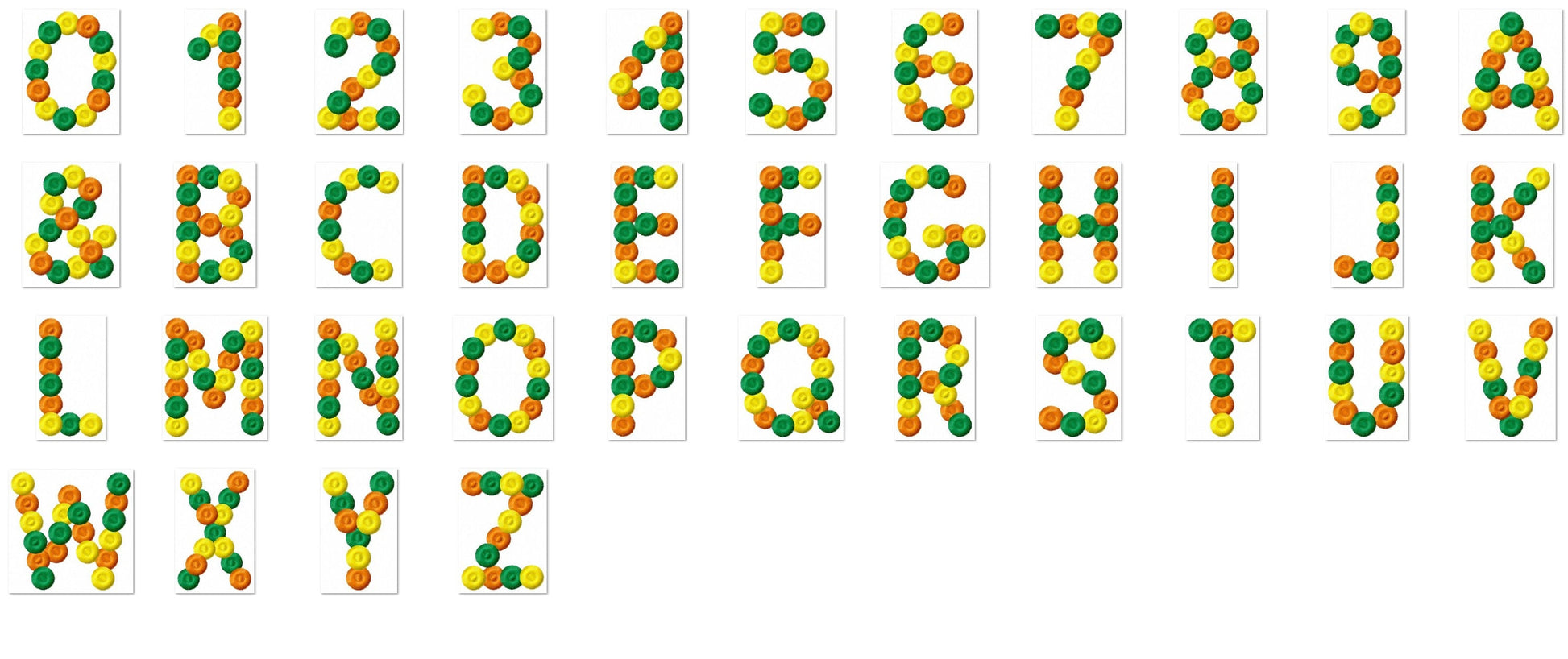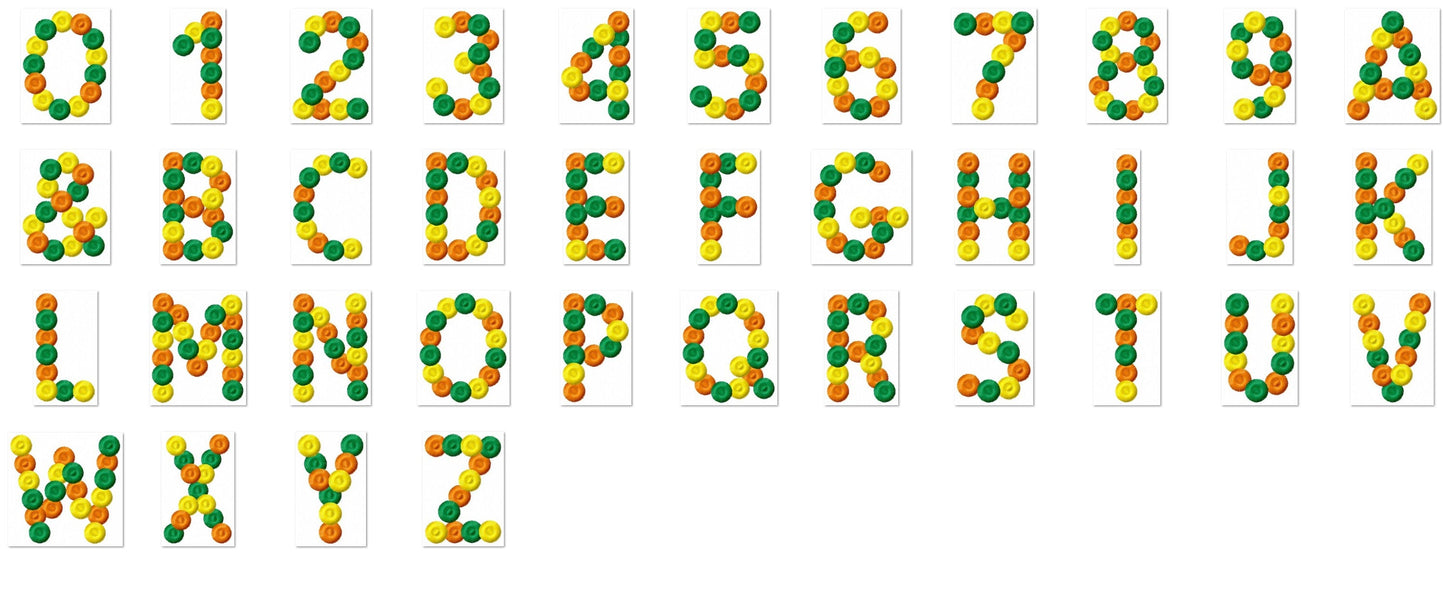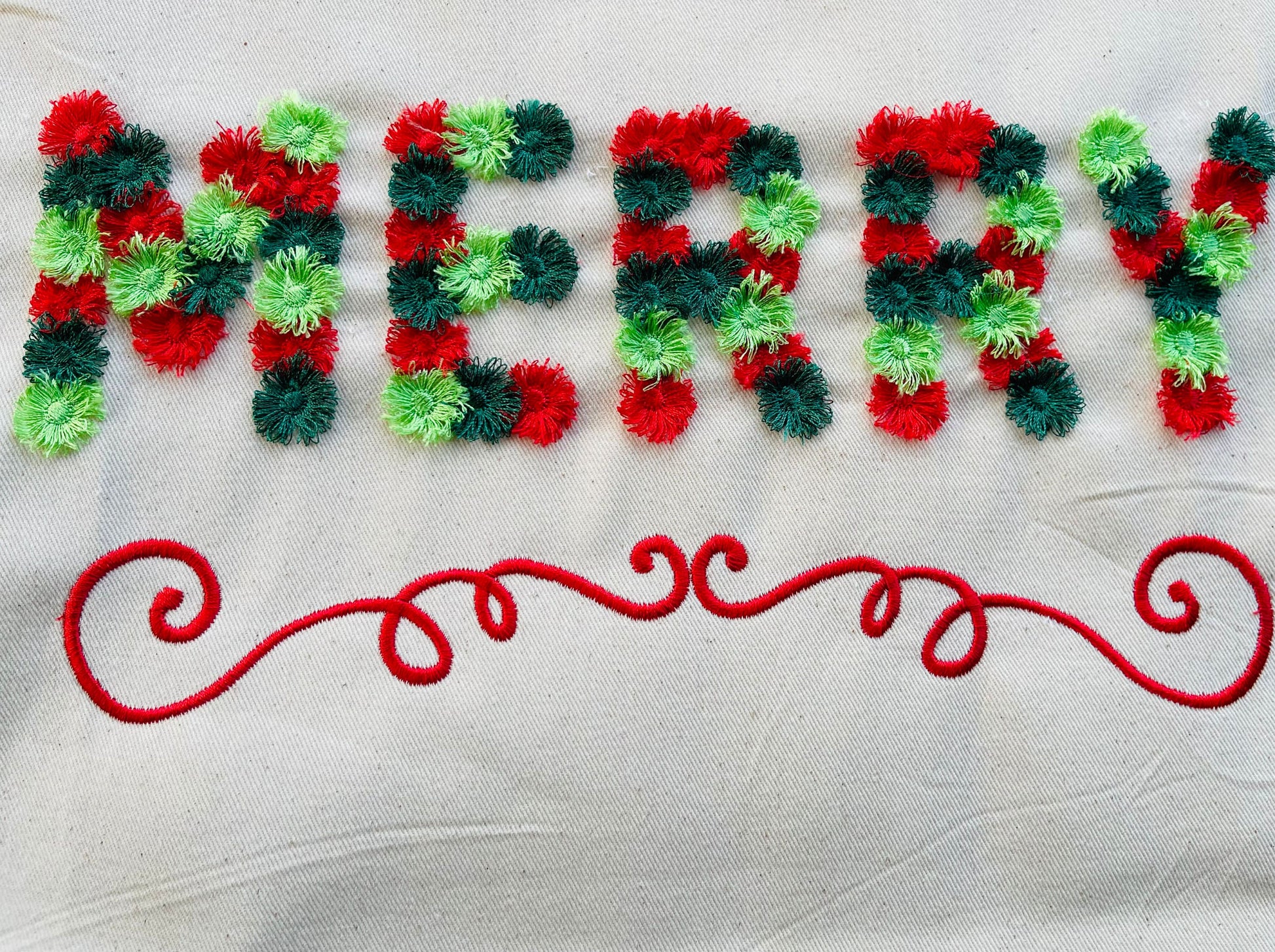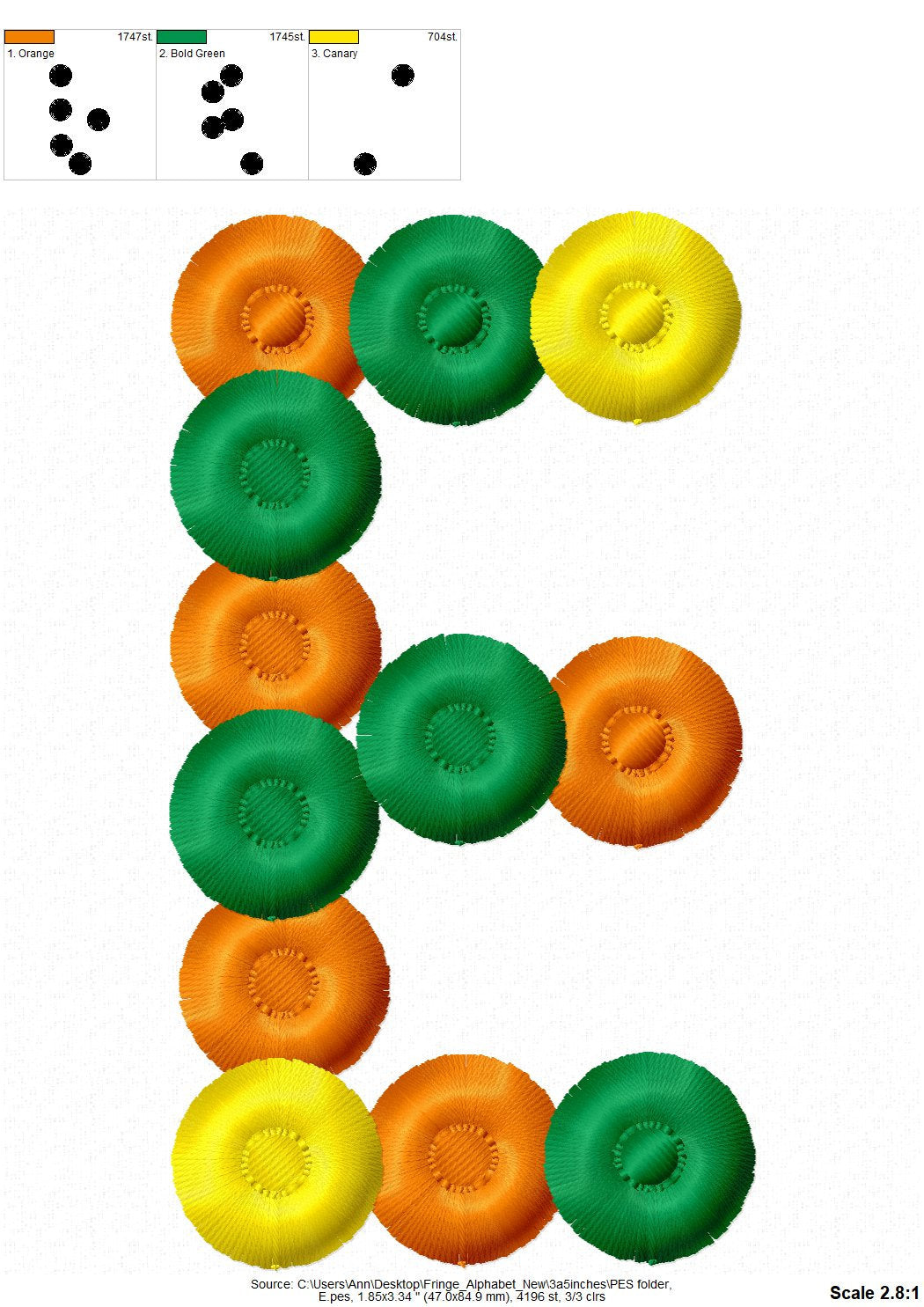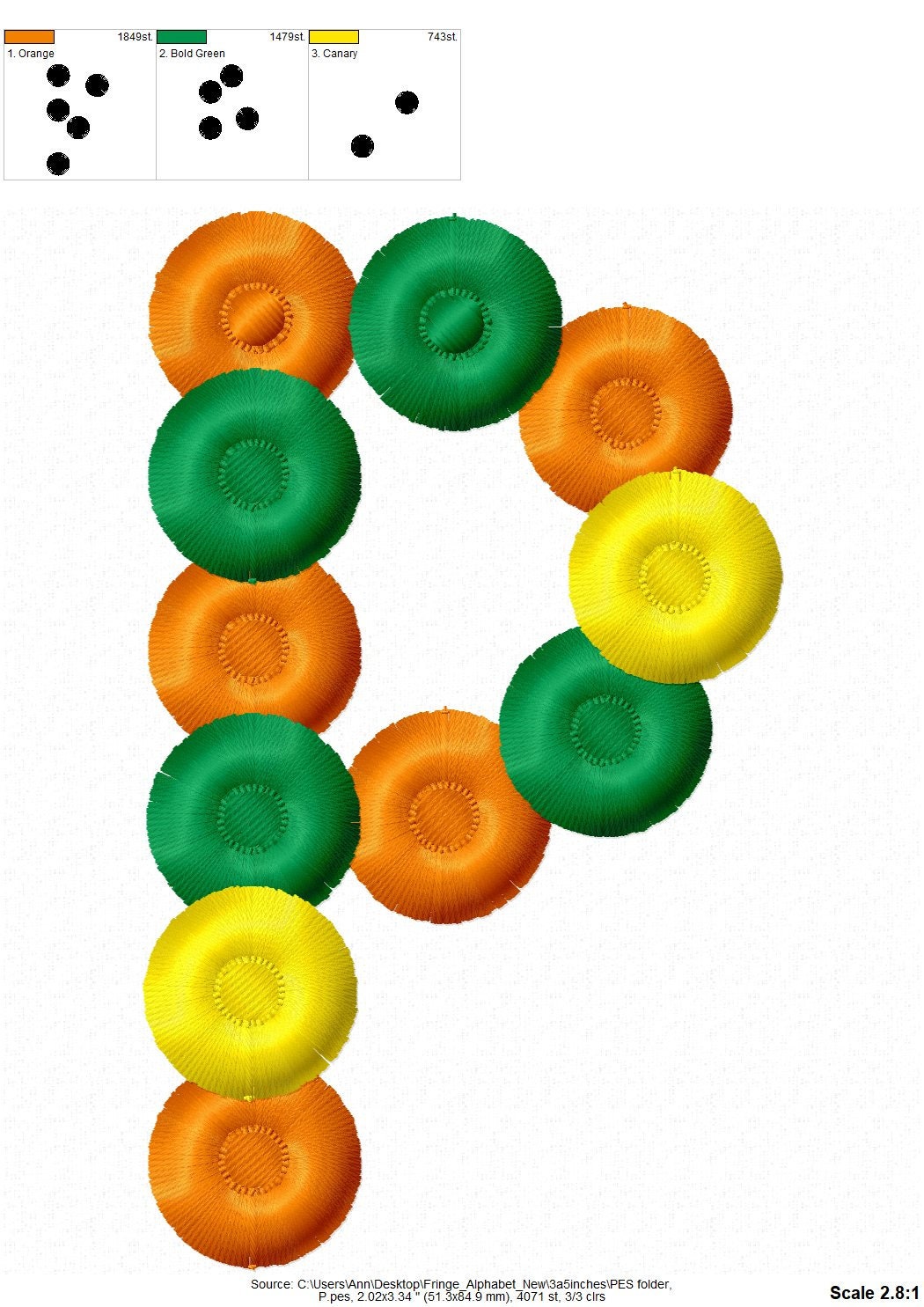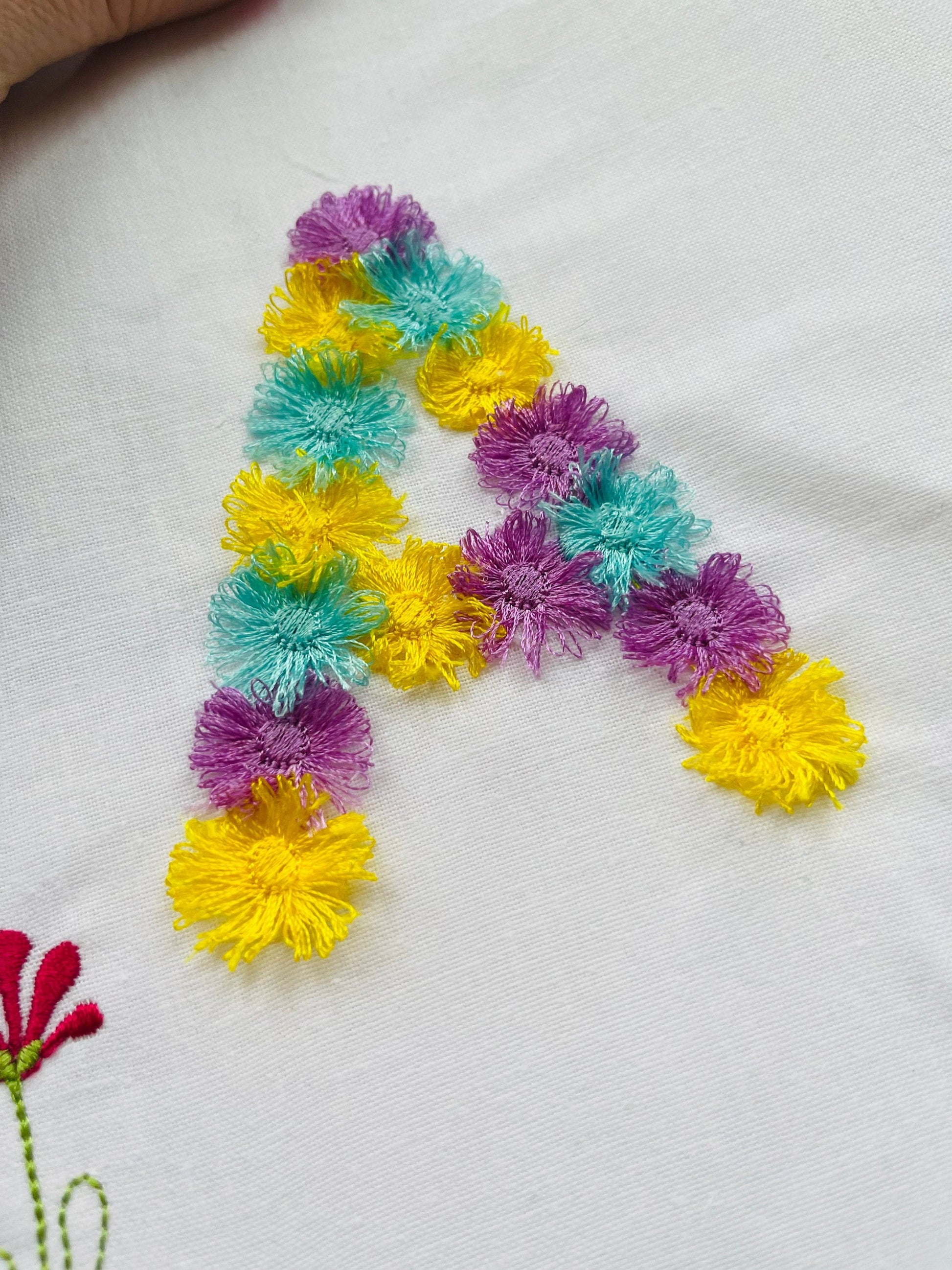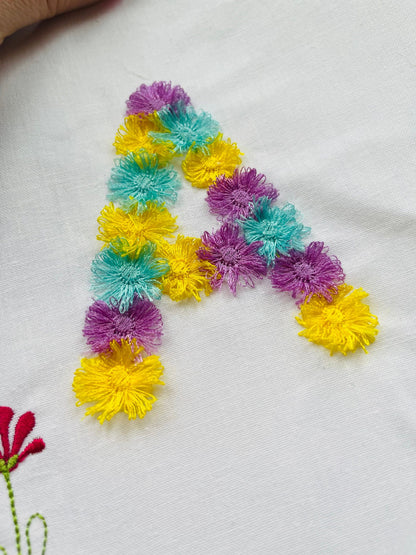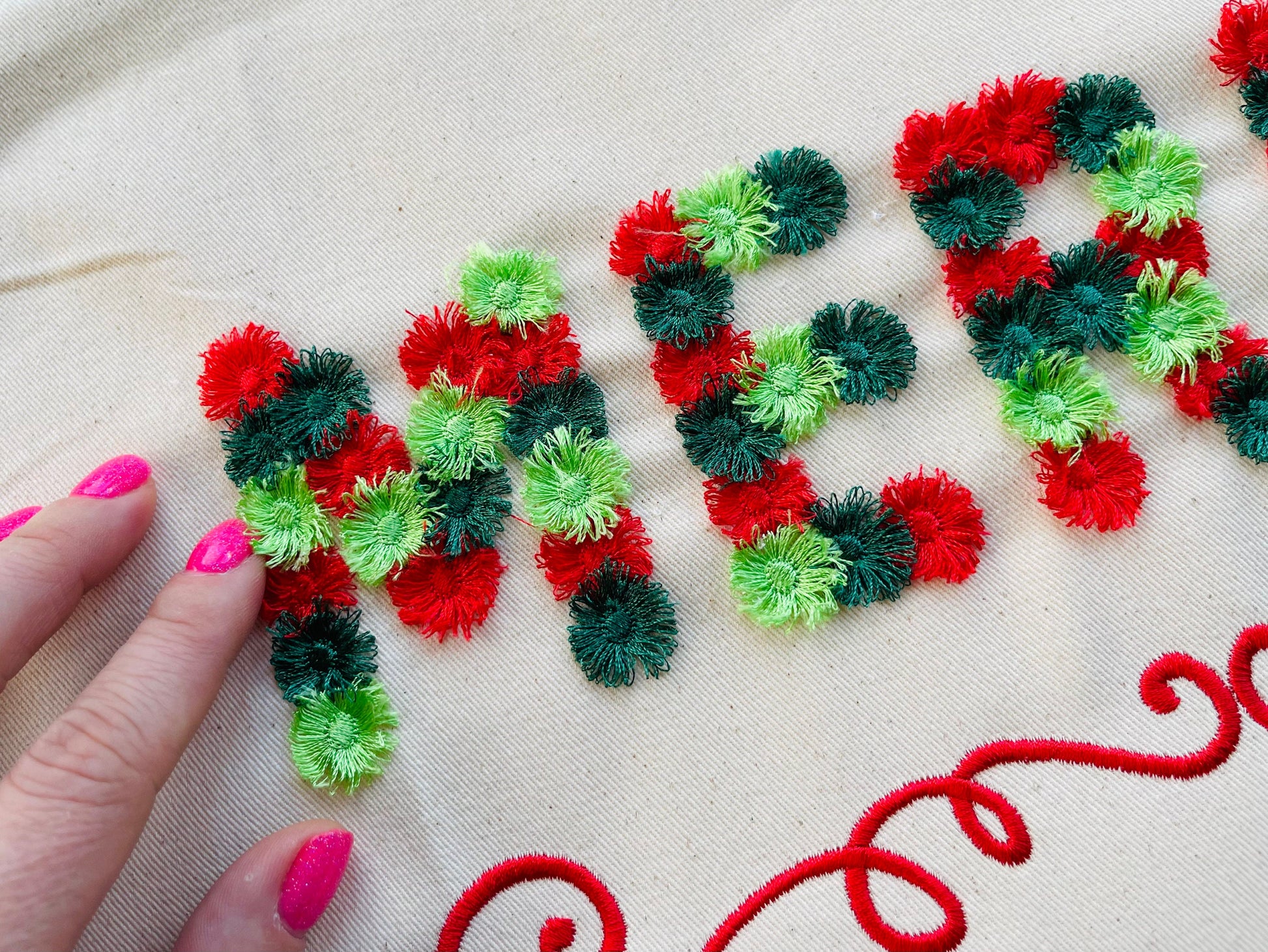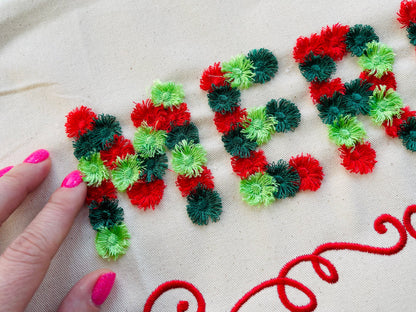
Or click to open the linkAn extra fluffy circle fringed font. Pretty for girls' names, pillows, sweatshirts and gifts.
Uppercase letters A to Z, numbers 0 to 9, an ampersand and a dash. Five sizes: 2, 2.5, 3, 3.5 and 4 inches. Extra dense fringe; add one more layer of strong stabilizer. Safe to wash.